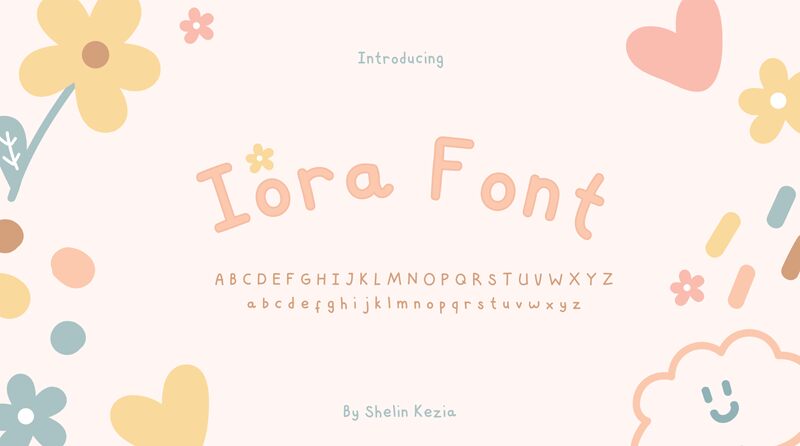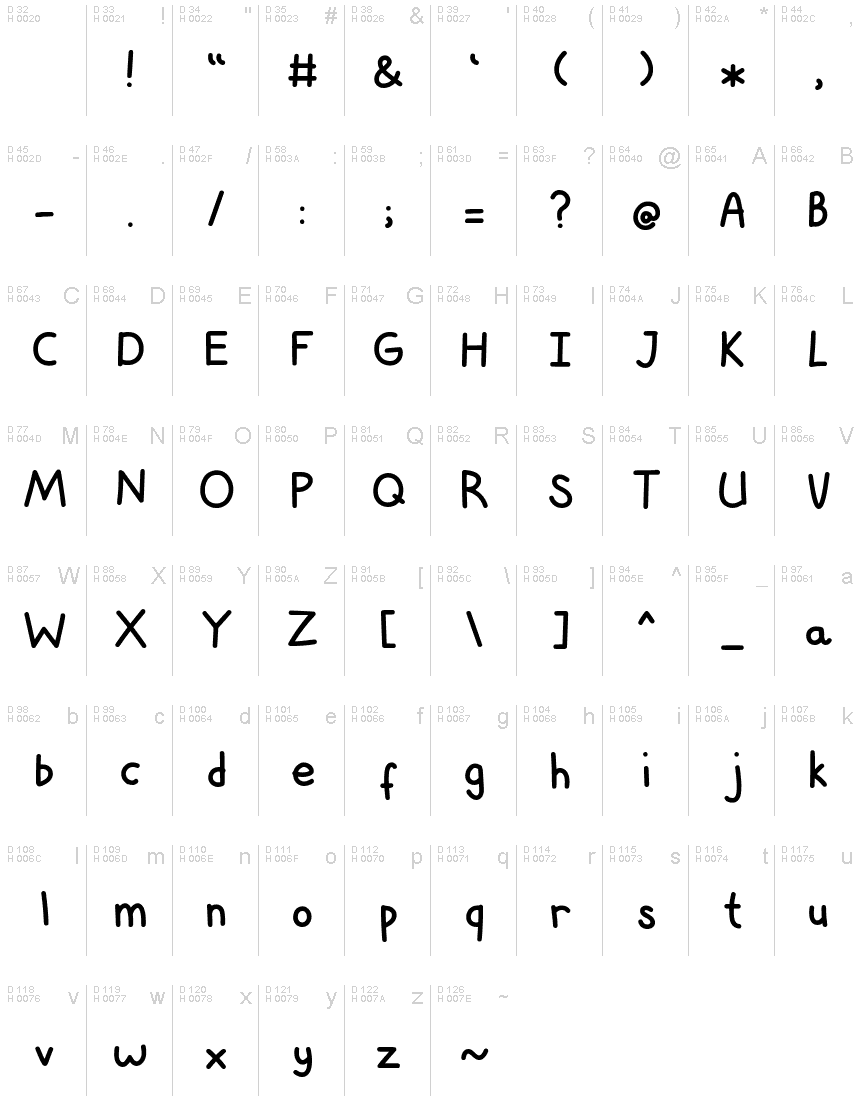
Iora Regular Regular
Iora, the stunning semi-light handwritten font designed by Shelin Kezia, is the perfect choice for a range of creative projects. Whether you're looking to add a touch of elegance to your wedding invitations, create a playful logo for your business or design eye-catching social media graphics, Iora has got you covered. This versatile font features gentle curves and delicate strokes that exude sophistication and whimsy in equal measure. So go ahead and let your creativity run wild with Iora - the only limit is your imagination!